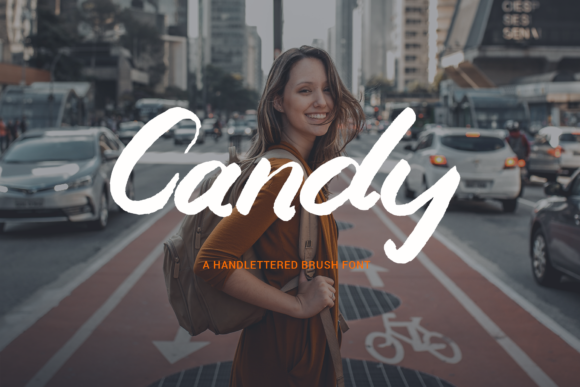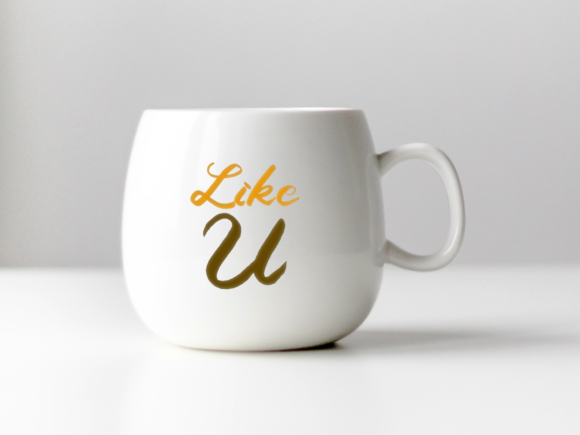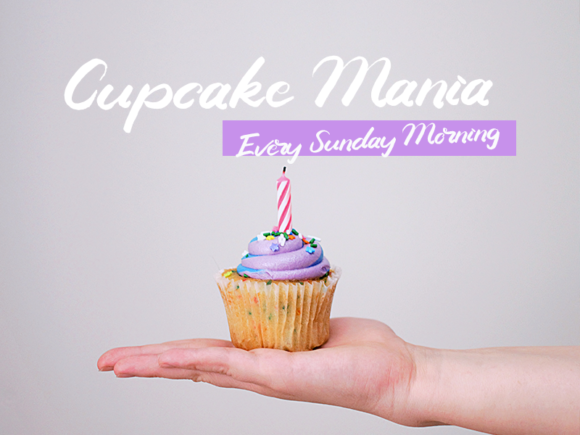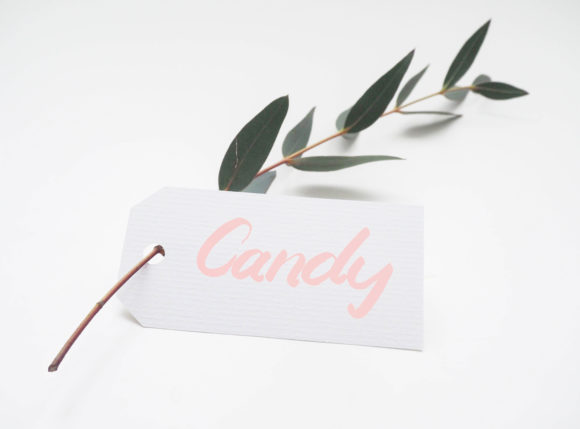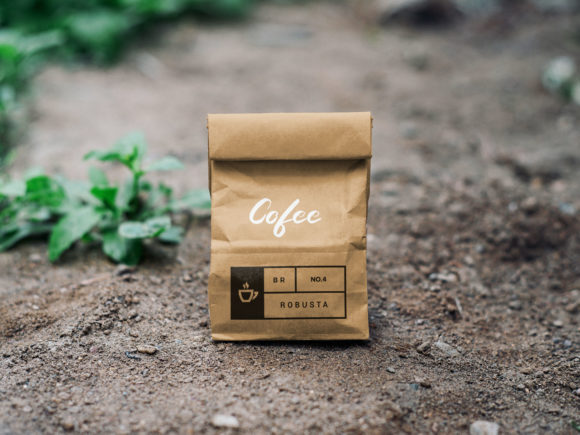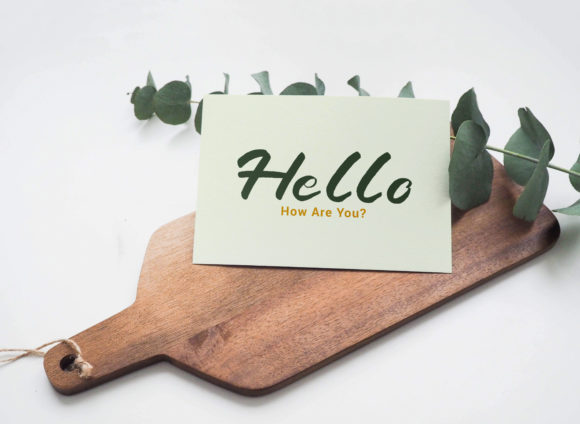
HomeScript FontsCandy Font Script Fonts Candy Font FacebookXPinterestWhatsApp Candy Font Poster 2 Candy Font Poster 3 Candy Font Poster 4 Candy Font Poster 5 Candy Font Poster 6 About Candy Font Breakroom is a simple, yet charming handwritten font with a bold feel. Get inspired by its unique charm! DOWNLOAD NOW People also explored Thin Signature Font Olivia Megan Font Goldbrick Font Brownis Font Stay Classy Font Before Breakfast Font Floral Font Beauty Brand Font Alif Font 305 0 TagsCandy Font Previous articleEmely FontNext articleSpacetime Font LEAVE A REPLY Cancel reply Comment: Please enter your comment! Name:* Please enter your name here Email:* You have entered an incorrect email address! Please enter your email address here Website: Save my name, email, and website in this browser for the next time I comment. Personal Use Free Retro Poster Personal Use Free Read more about this font Beloved Script Personal Use Free Read more about this font Caramel Latte Personal Use Free Read more about this font Consequences Personal Use Free Read more about this font BLOG Exploring Font Trends Shaping Communication in the Digital Era Fonts, like all design elements, are subject to trends. They play a crucial role in communicating a brand's personality,... Modern Sans-Serif Fonts That Brands Love in 2025 How to Cut Any Font on Cricut: Convert a Font to SVG (Free) Using Fonts in Digital Marketing: Tips to Strengthen Your Brand Identity